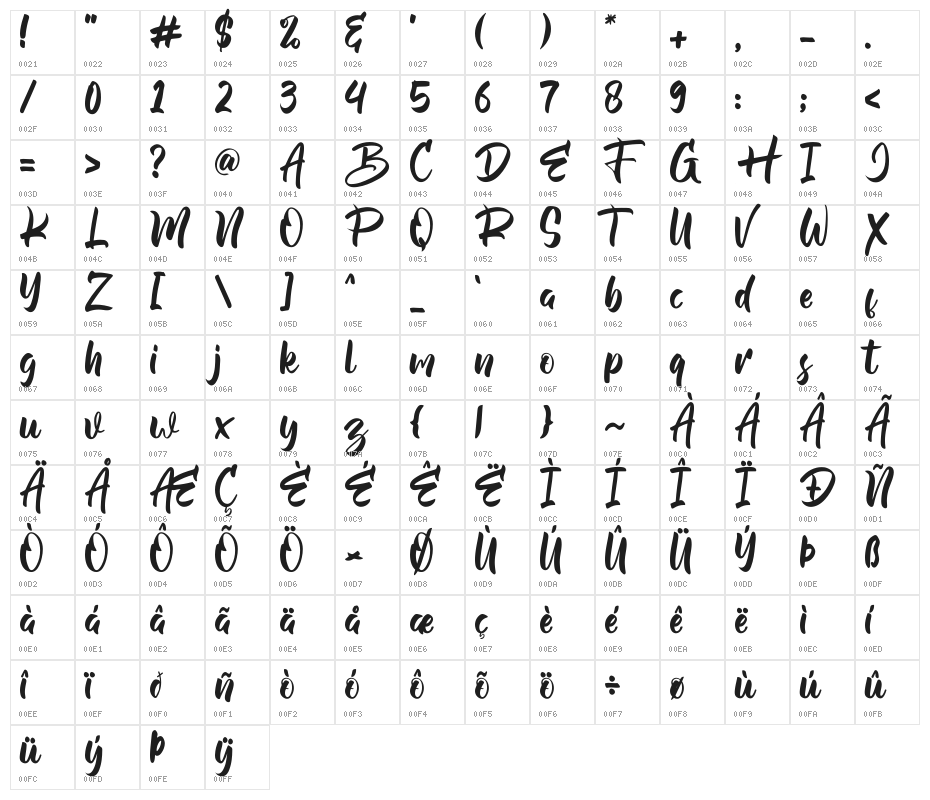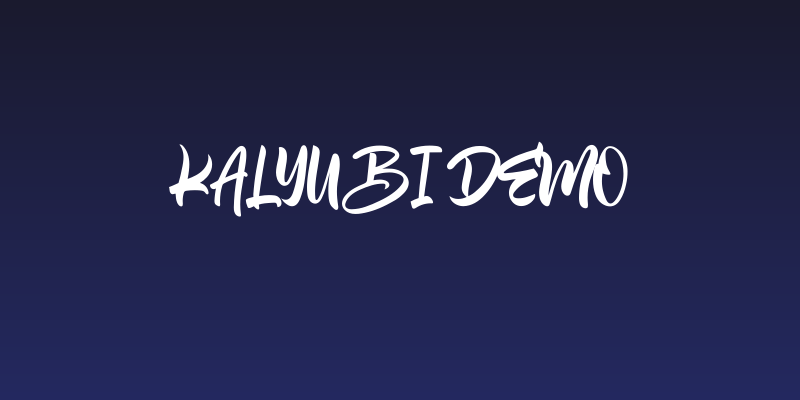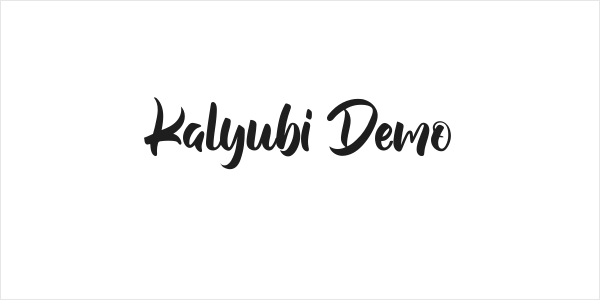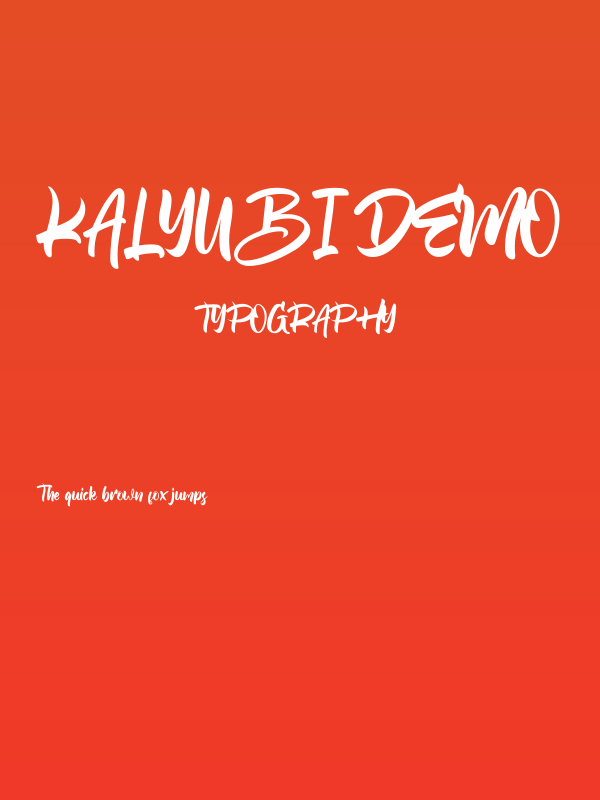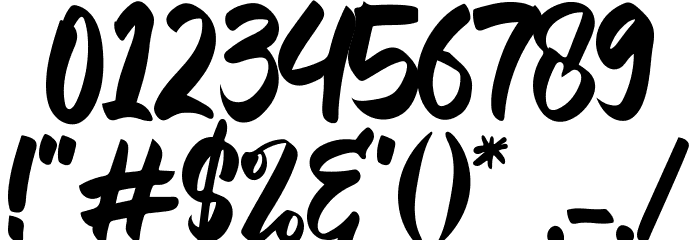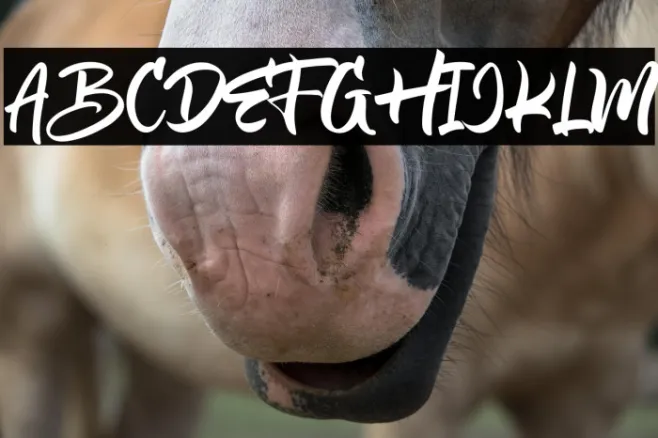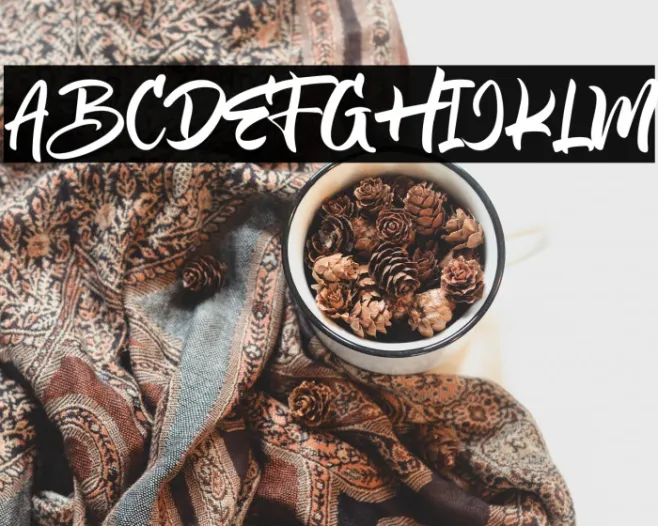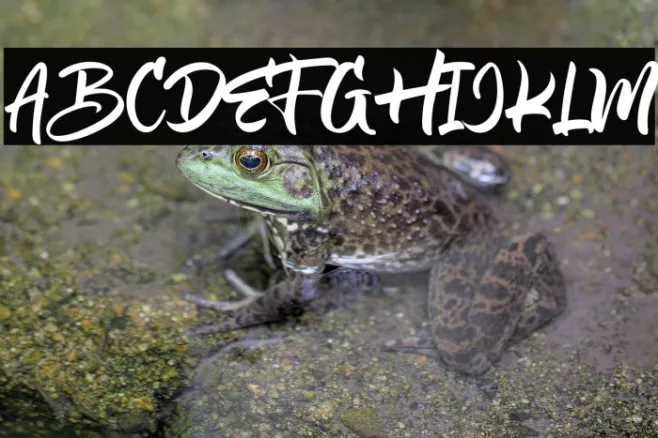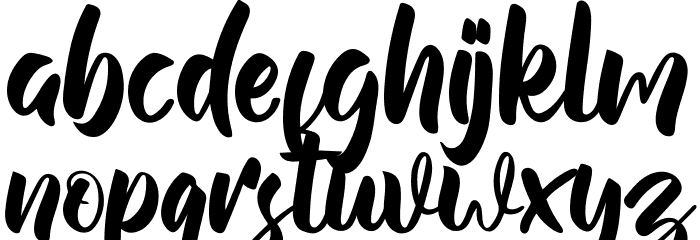
Kalyubi Demo Font
Kalyubi Demo Description
This font exudes a bold and energetic vibe with its brush script style, characterized by thick, flowing strokes that mimic the natural motion of handwriting. The uppercase letters are dynamic and slightly slanted, giving a sense of movement and fluidity. The lowercase letters maintain a consistent style, with rounded edges and a playful touch. Numbers and special characters are crafted with the same lively spirit, ensuring a cohesive look throughout. This font is perfect for projects that require a personal and informal touch, such as invitations, posters, and branding materials.
| Proposed Projects | Ideal for invitations, posters, branding, and any project needing a personal touch. |